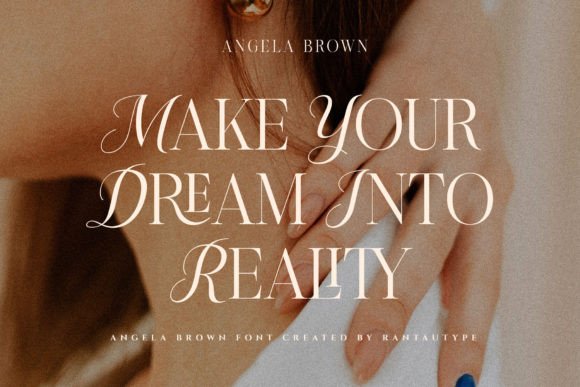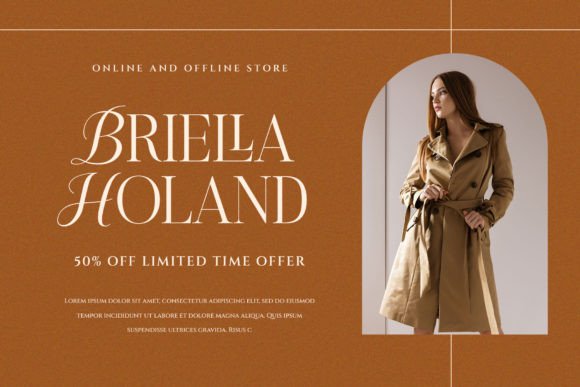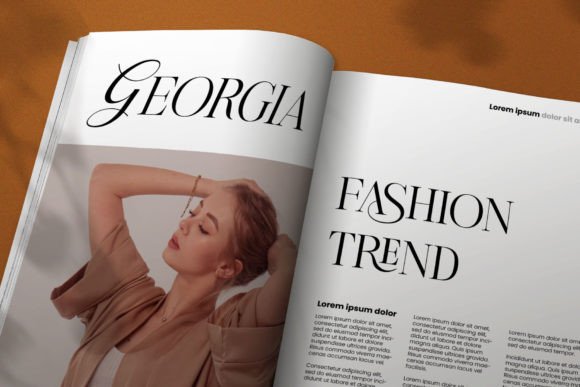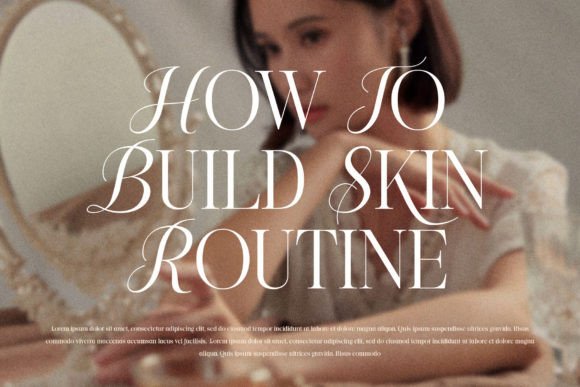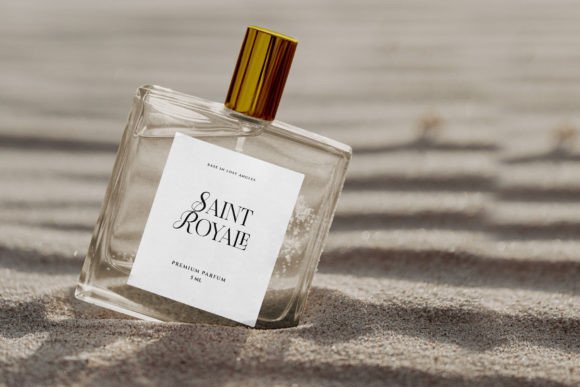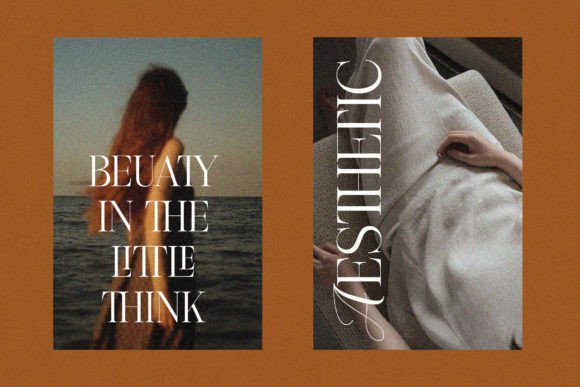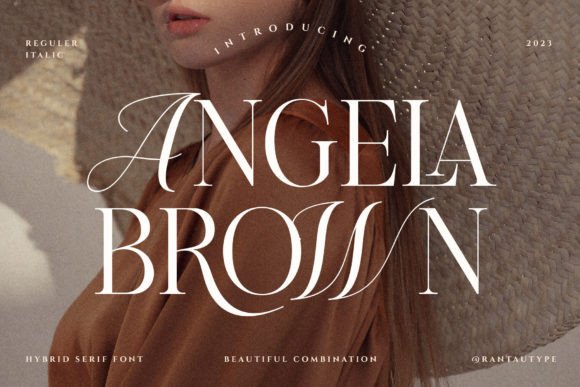
Discover the Elegance of Angela Brown Font: A Perfect Blend of Classic and Modern
In the world of typography, few fonts manage to strike a balance between classic elegance and modern sophistication. Angela Brown Font is one such remarkable typeface that seamlessly merges traditional calligraphy with contemporary serif elements. This beautiful and inspiring font is designed to elevate your designs, making it an ideal choice for a wide range of creative projects.
The Unique Characteristics of Angela Brown Font
Angela Brown Font boasts a unique blend of classic calligraphy and modern serif characteristics. Its elegant strokes and refined lines are reminiscent of traditional calligraphy, while its modern serif elements add a touch of sophistication and versatility. This distinctive combination makes Angela Brown Font perfect for headlines, titles, and any design that requires a sense of luxury and refinement.
Versatility at Its Best: Use Cases for Angela Brown Font
One of the standout features of Angela Brown Font is its incredible versatility. This font is not limited to a single design application but can be used across various mediums, including:
• Advertising: Add a touch of elegance and sophistication to your ad campaigns with Angela Brown Font.
• Vintage Mood Boards: Create captivating mood boards that evoke a sense of nostalgia and charm.
• Branding and Logotypes: Elevate your brand identity with a font that exudes luxury and refinement.
• Packaging: Make your product packaging stand out with elegant and eye-catching typography.
• Titles and Editorial Design: Enhance your editorial designs, such as magazines, newspapers, and blogs, with beautiful headings and titles.
• Modern Logos: Create modern logos that are both trendy and timeless.
• Websites and Social Media Quotes: Engage your online audience with stylish and readable text.
• Wedding Branding: Add a touch of romance and sophistication to your wedding designs and stationery.
• Modern and Vintage Designs: Blend contemporary and classic design elements seamlessly with Angela Brown Font.
Why Choose Angela Brown Font?
With so many fonts available, why should you choose Angela Brown Font for your next project? Here are a few compelling reasons:
• Unique Aesthetic: Angela Brown Font offers a distinctive look that sets it apart from more common typefaces.
• High Versatility: Its adaptability makes it suitable for a wide range of design applications.
• Elegance and Sophistication: The font adds a touch of luxury and refinement to any design.
• Easy to Read: Despite its elegant design, Angela Brown Font remains highly readable, even at smaller sizes.
Tips for Using Angela Brown Font Effectively
To make the most of Angela Brown Font, consider the following tips:
• Pair with Complementary Fonts: Combine Angela Brown Font with simpler sans-serif fonts for body text to create visual contrast.
• Use for Headlines and Titles: Take advantage of its elegant design by using it for headlines, titles, and key messages.
• Experiment with Colors: While the font itself is elegant, experimenting with different colors can further enhance its impact.
• Consider the Mood: Ensure that the overall mood of your design aligns with the elegant and sophisticated vibe of Angela Brown Font.
Angela Brown Font is a stunning typeface that brings a perfect blend of classic calligraphy and modern serif elements to your designs. Its elegance, versatility, and readability make it an excellent choice for designers and crafters looking to add a touch of sophistication and charm to their projects. Whether you’re working on branding, editorial designs, packaging, or any other creative endeavor, Angela Brown Font is sure to elevate your work to new heights.